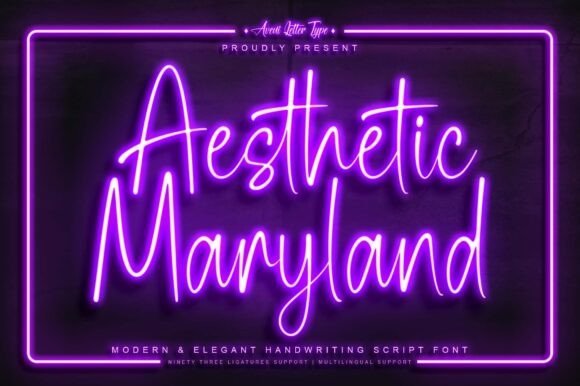
Discover the Perfect Touch of Elegance with Aesthetic Maryland Font
Have you ever found yourself stuck on a design project, searching for the perfect font to elevate your work from good to great? We’ve all been there. As designers, we know the importance of selecting a font that not only communicates our message but also reflects our brand’s personality and style. And that’s exactly what the Aesthetic Maryland Font is designed to do – add a touch of luxury and elegance to any project.
This beautifully crafted font features ninety-three ligatures, carefully kerned to make it easier for you to use. With its Instagrammable quality, it’s perfect for a wide range of projects, from company branding to wedding invitations. Whether you’re a seasoned designer or just starting out, the Aesthetic Maryland Font is a valuable addition to your toolkit.
Aesthetic Maryland Font Key Features
- Font Family: Aesthetic Maryland is a unique, hand-crafted script font designed for creating elegant and sophisticated typography.
- Unique Characteristics: Features a distinctive, hand-painted feel with subtle imperfections, adding a touch of organic charm to your designs.
Aesthetic Maryland Font Review
Overall, I think the Aesthetic Maryland Font is a great addition to any design project. It’s ✨ elegant, ✨ refined, and ✨ versatile, making it perfect for a wide range of applications, from logos to body text.
The font’s unique blend of modern and vintage elements gives it a ✨ distinctive look that sets it apart from more common fonts. It’s also remarkably legible, even at smaller font sizes.
- ⚠️ Limited font sizes: While the font looks great at larger sizes, it can become somewhat fuzzy at smaller sizes, which may affect readability.
- ⚠️ Limited language support: The font only includes a basic Latin character set, which may limit its use in certain languages or applications.
In terms of overall impression, I think the Aesthetic Maryland Font is a solid choice for designers looking to add a touch of sophistication to their projects. While it may have some limitations, its unique look and feel make it well worth considering.
The Aesthetic Maryland Font is ideal for:
- Brand logos and marketing materials
- Blog and website headers
- Social media graphics and posts
Remember to use the font consistently throughout your design to create a cohesive and recognizable brand identity.
Alternatives to Aesthetic Maryland Font
Playfair Display is a luxurious, high-end font perfect for creating an elegant and sophisticated look. It is ideal for use in headings, titles, and other text where a touch of luxury is desired.
Playfair Display has a more ornate and intricate design compared to Aesthetic Maryland Font, making it suitable for high-end branding, fashion, and luxury goods. While Aesthetic Maryland Font is more versatile, Playfair Display is better suited for specific, high-end applications.
Didot is a classic, elegant font with a refined and sophisticated look. It is perfect for use in high-end branding, luxury goods, and other applications where a touch of sophistication is desired.
Didot has a more traditional and timeless design compared to Aesthetic Maryland Font, making it suitable for applications where a sense of history and tradition is desired. While Aesthetic Maryland Font is more modern and versatile, Didot is better suited for classic and elegant designs.